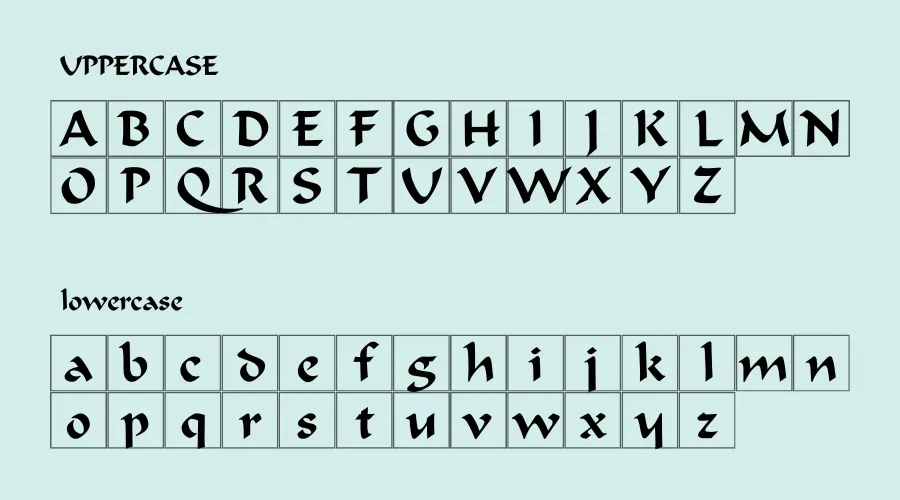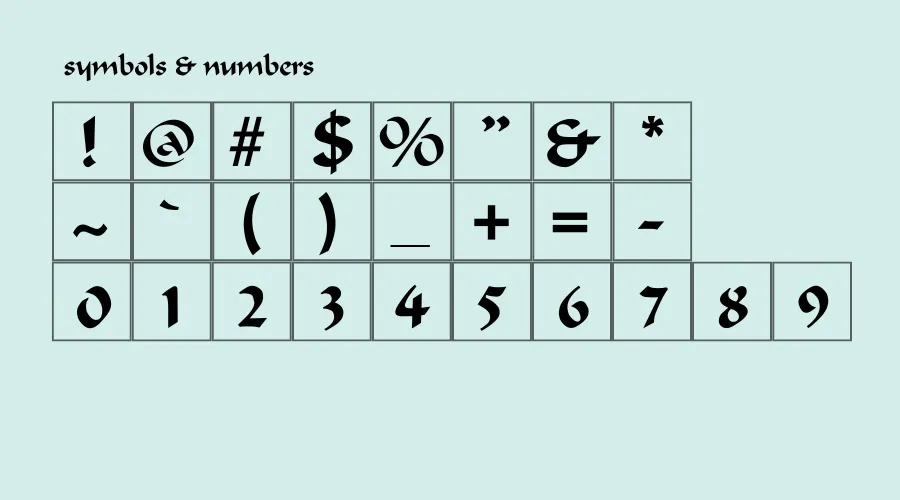
Ondine Font
About Ondine Font
Adrian Frutiger created Ondine Font which is a curly text style. With ligatures, proportions, arrows, icons, fractions, case-sensitive forms lesser and greater commas, and circled figures, the font is perfect for advanced typography. A modern, clean, and professional appearance are can be seen its free version is available here.
You can use this font to enhance the appeal of fabric prints it has neat, clean, strong character shapes that make it perfect for enhancing the quality of your work. You can easily compare this font with the winob font.
A variety of designs can be created with this typeface, including logos, headlines, and web designs.  Numerous places, such as fashion magazines, books, newspapers, and company branding, would benefit from the use of this typeface.
With this typeface, you can create a very professional logo, heading, or branding. You’ll be able to make your headlines stand out by adding eye-catching glyphs. With this stunning typeface, you can use both lowercase and uppercase letters. This typeface is very similar to the devinne swash font.
Name Ondine Font
Designer Adrian Frutiger
Style Fancy
Is there a similar font to Ondine Font?
The closest font to this attractive font is a Flicker DEMO Font, which is a great choice for your task.
Who created Ondine Font?
The font was designed by a talented designer named Adrian Frutiger.